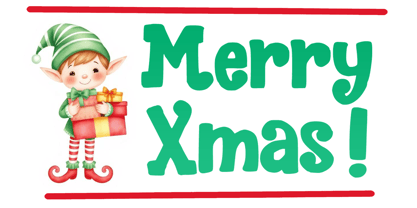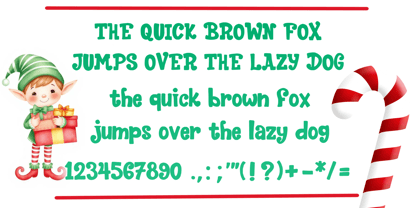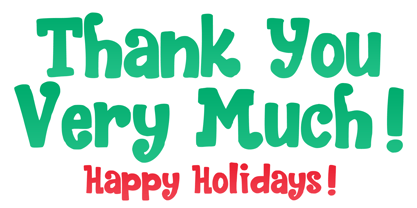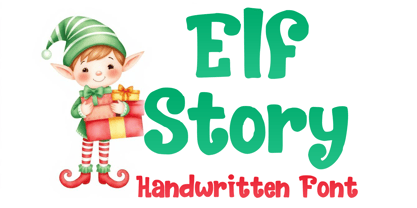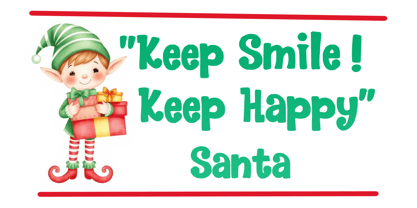
Elf Story
by Mvmet
The Elf Story Font Family was designed by Gabriel Valentinus and published by Mvmet. Elf Story contains 1 styles. More about this family
Introducing Elf Story - an enchanting, Christmas elf-inspired display font that radiates festive cheer. This versatile and lively font dances across the page, making it the perfect choice for a wide range of applications, from children's book illustrations to playful t-shirt designs. Whether you're designing greeting cards, crafting vibrant stickers, or creating vivacious posters, Elf Story infuses each project with a dash of merriment. Its adaptability ensures it can enhance any design that requires a casual and charming touch. Fall under the spell of Elf Story, and let it sprinkle a touch of magic into your creations!
Designers: Gabriel Valentinus
Foundry: Mvmet